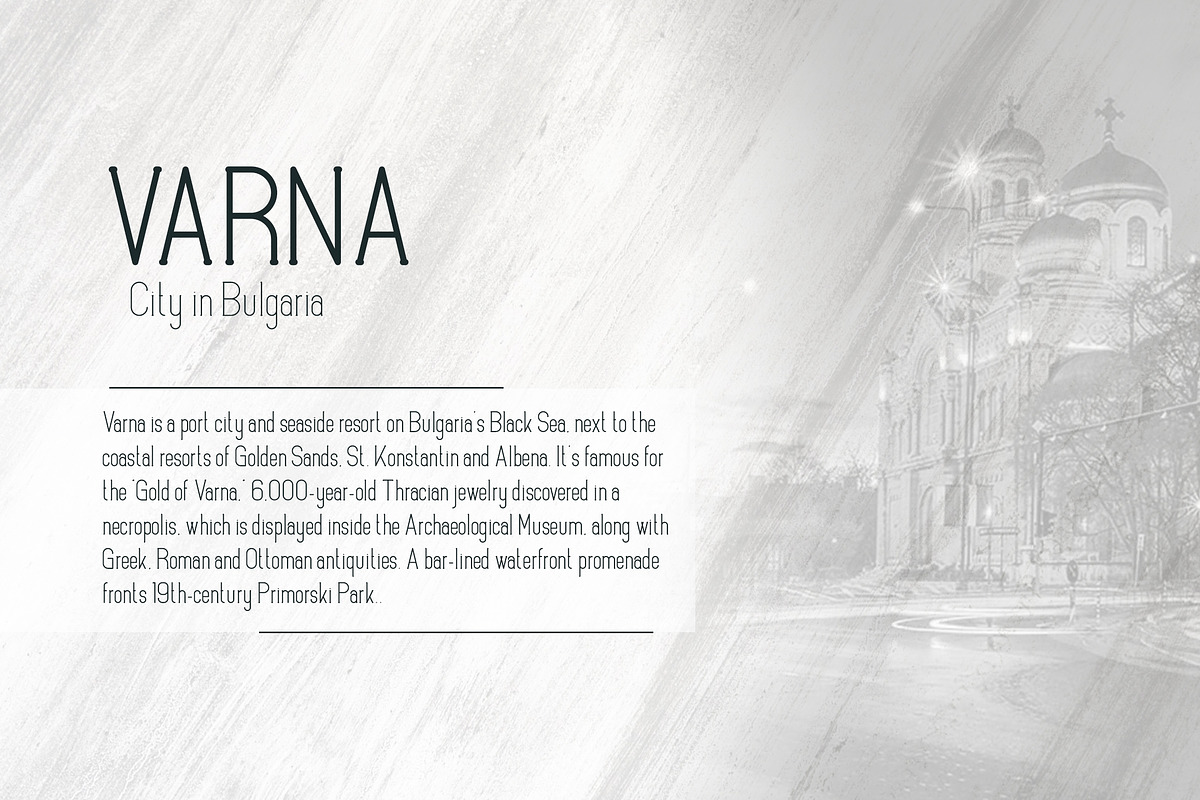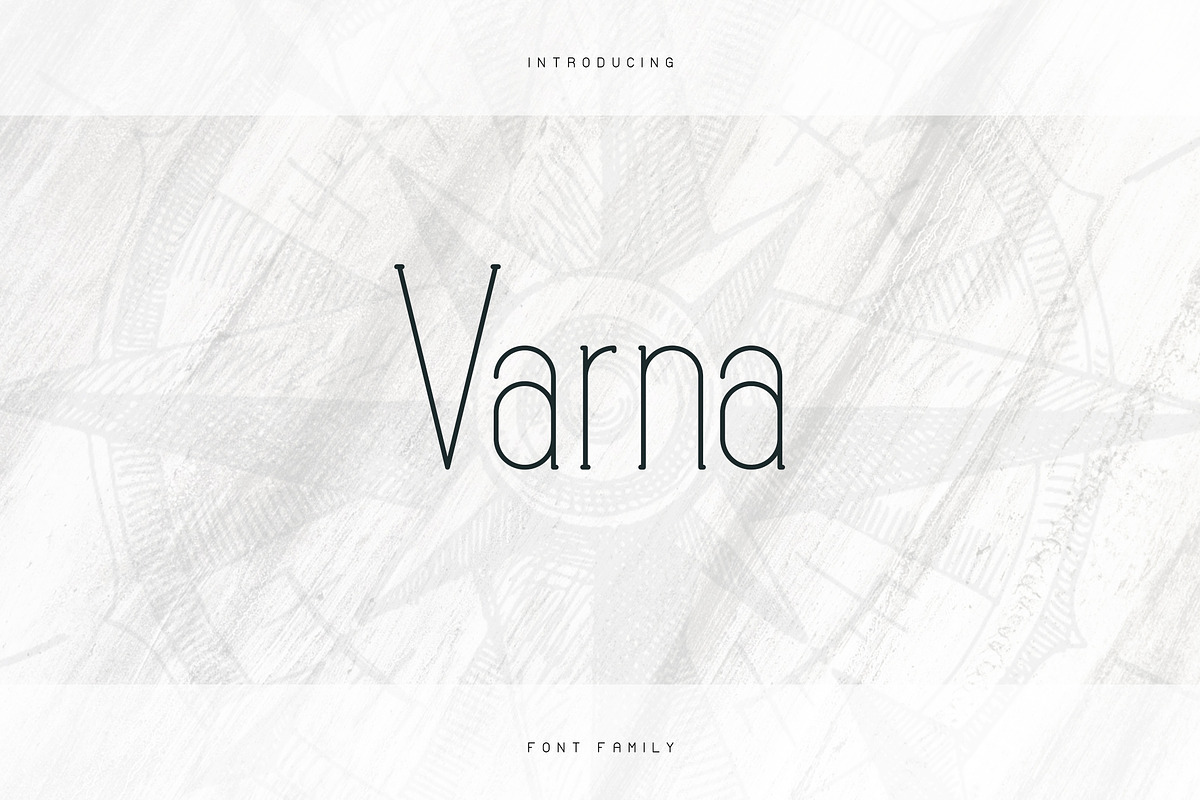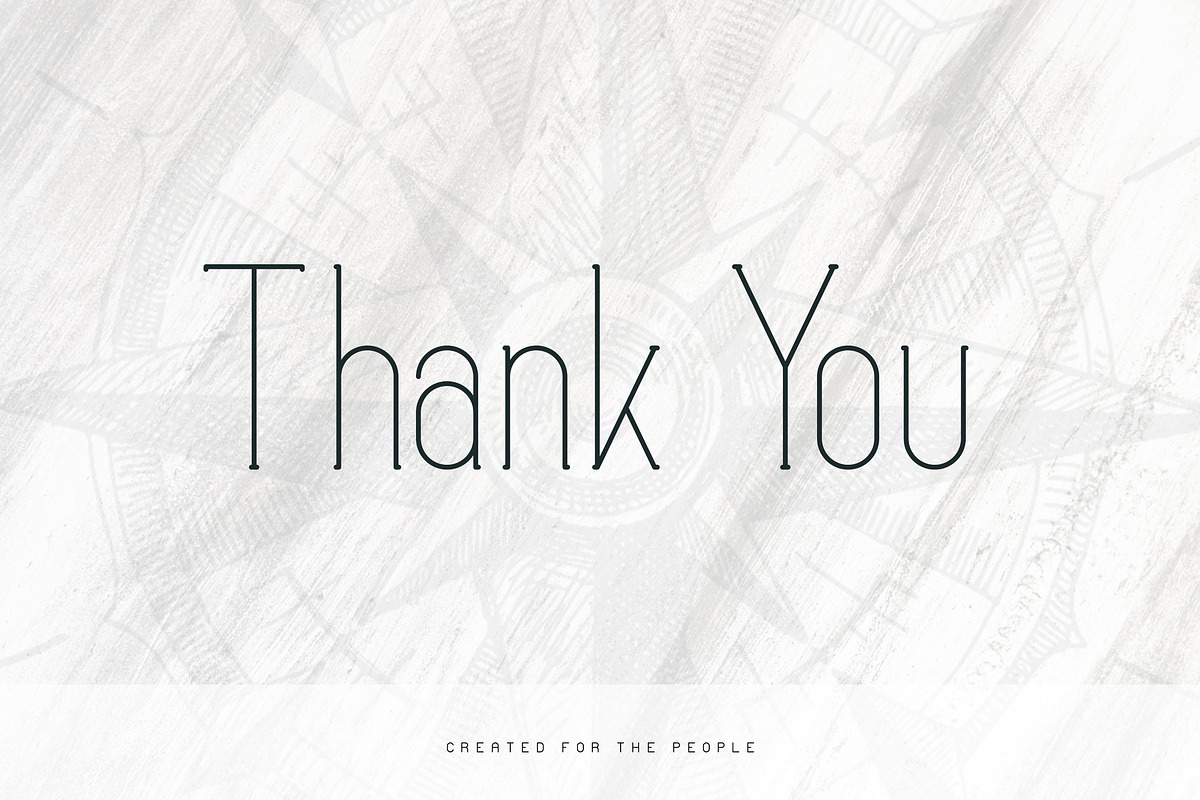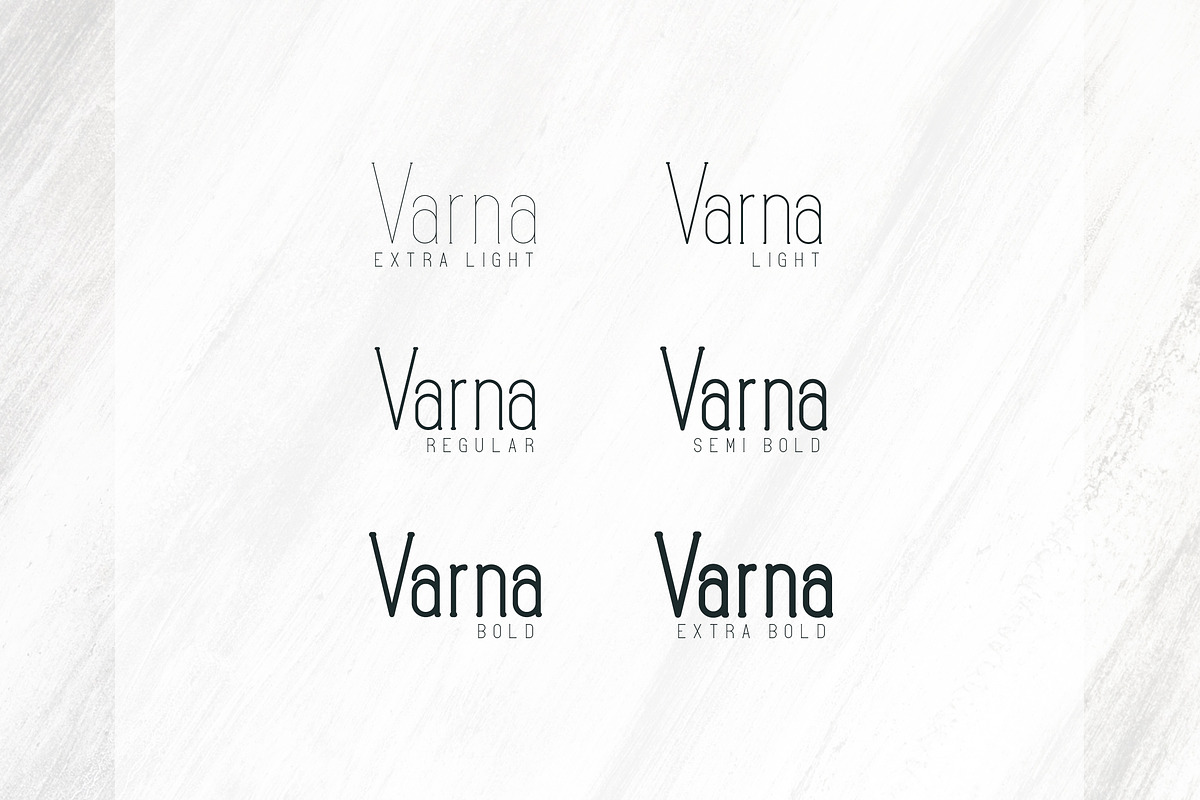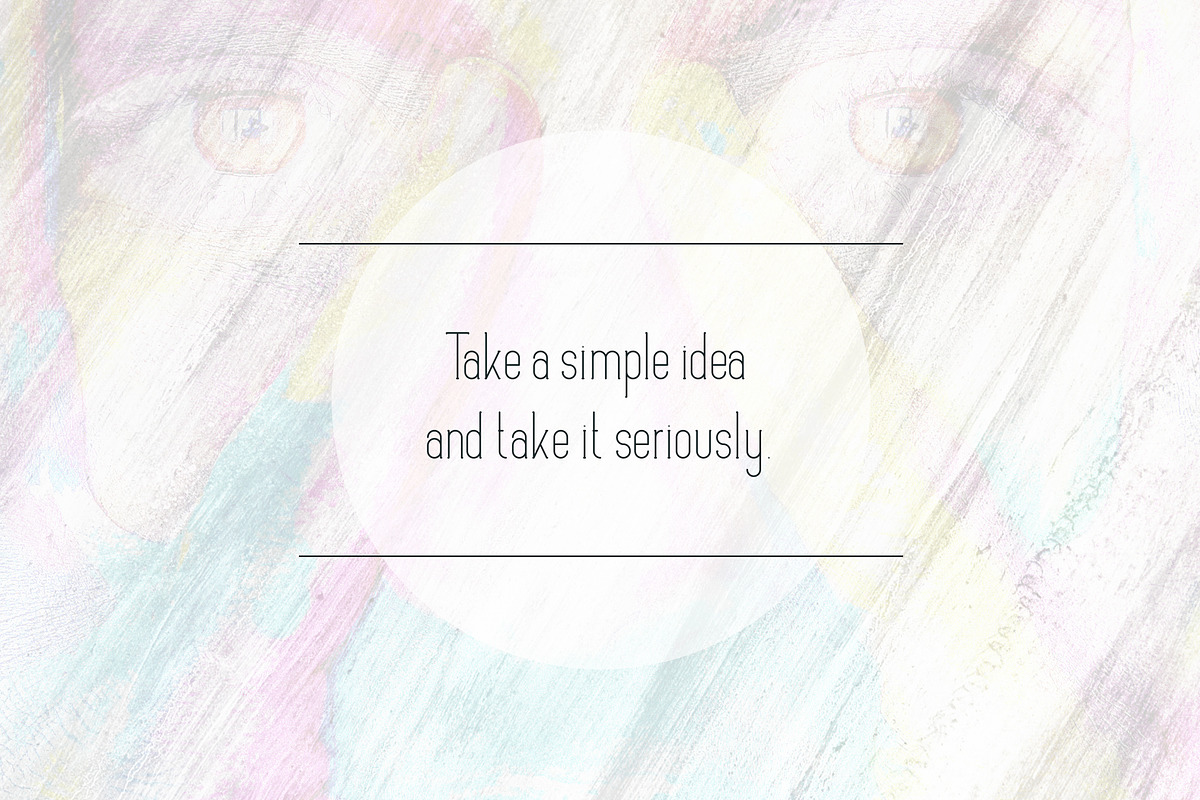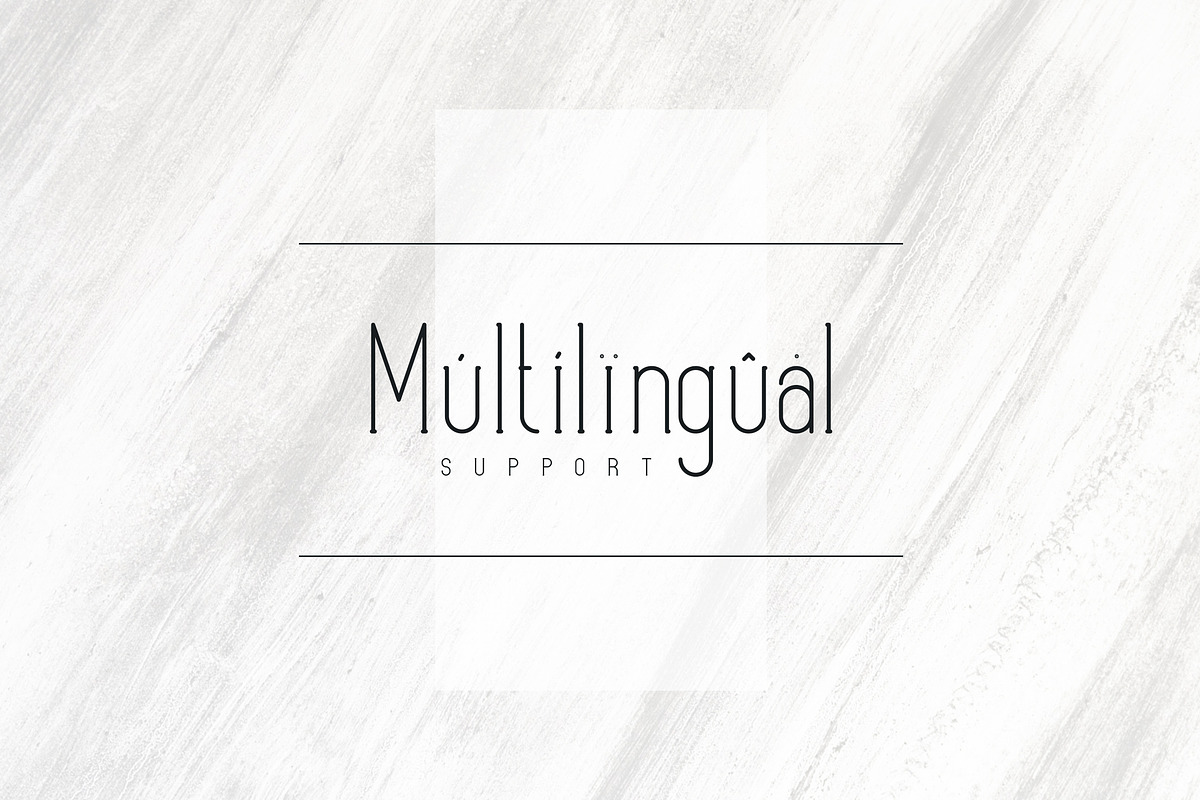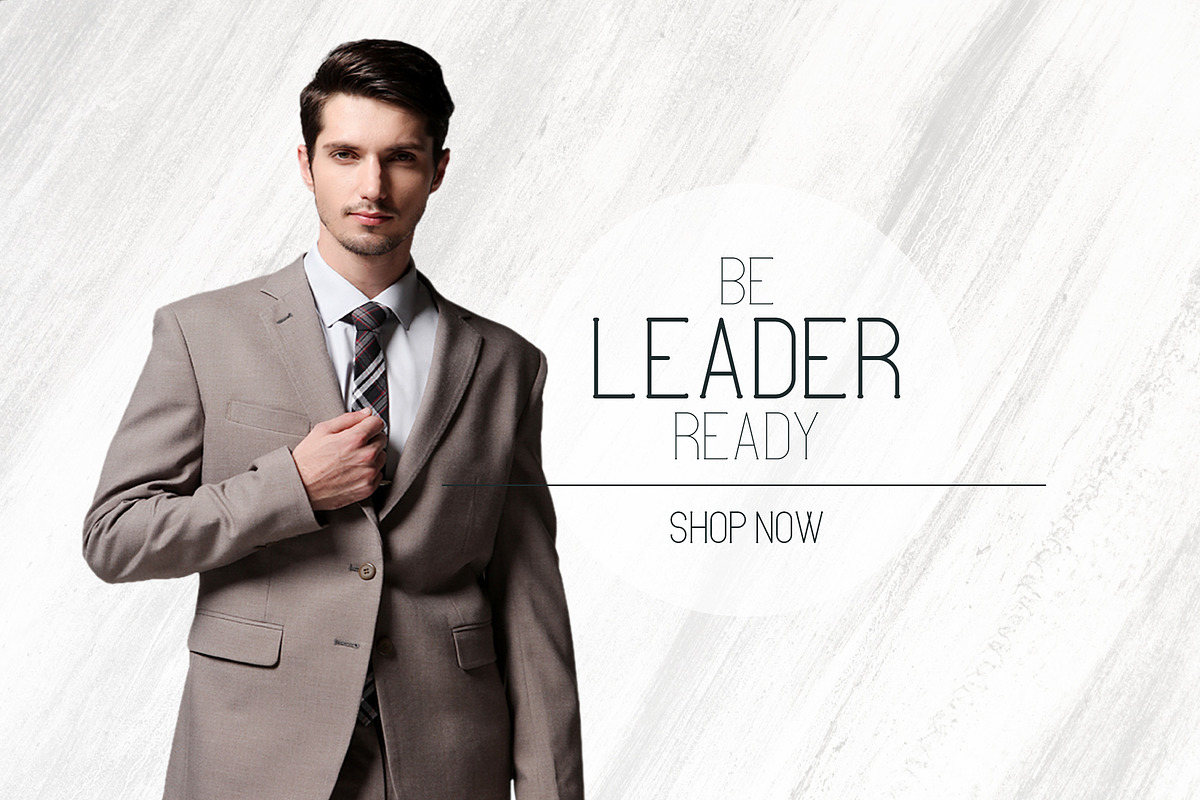
Varna - Slab Serif font family -70%
Varna is clean, tall typeface with 6 fonts and multilingual support. It's a very versatile font that works great in large and small sizes.
Varna is perfect for branding projects, home-ware designs, product packaging, magazine headers - or simply as a stylish text overlay to any background image.
- Varna ExtraLight
- Varna Light
- Varna Regular
- Varna SemiBold
- Varna Bold
- Varna ExtraBold